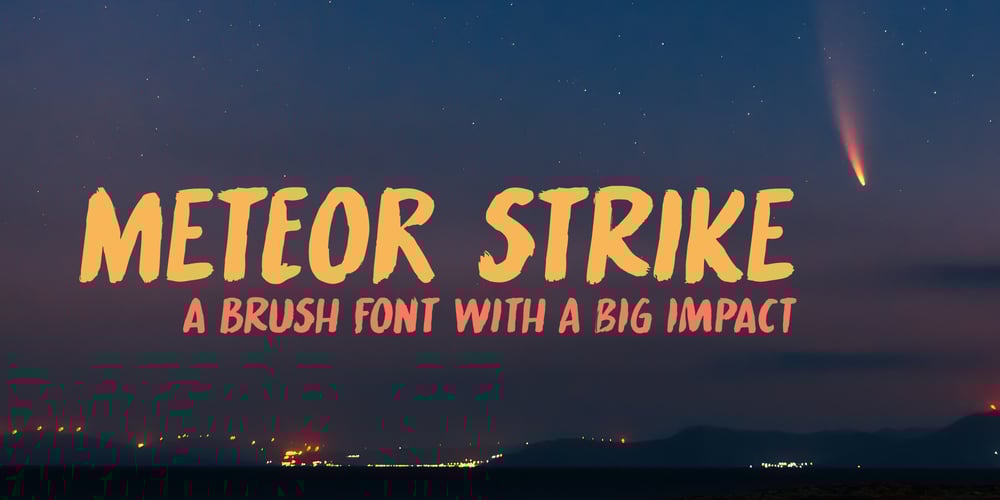
Meteor Strike
Meteor Strike font
Meteor Strike Font Family was designed by published by Hanoded. Meteor Strike contains 2 styles and family package options. My kids asked me what killed the dinosaurs. I told them it probably was a meteor strike off the coast of Yucatán in Mexico. So, when I made this font, that little talk about the meteor hitting earth came to mind and a font name was born!Meteor strike is a slightly slanted brush font. It was made with my Chinese ink and a cheap brush (like most of my brush fonts).Meteor Strike comes with an attitude and a cheeky grin. It will sure leave a lasting impact on your designs!